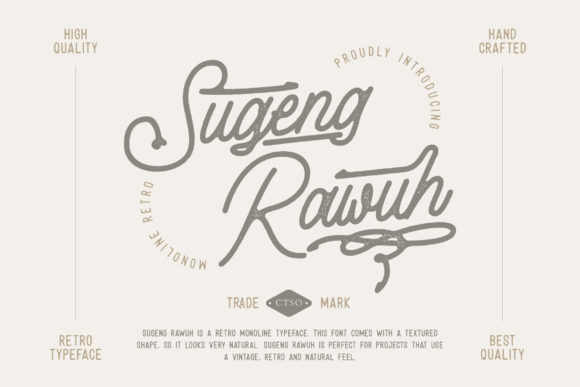
Unleash the Allure of Sugeng Rawuh: A Vintage Script Font That Captivates
In a world saturated with digital monotony, authenticity and charm are rare gems. Enter Sugeng Rawuh, a vintage-inspired script font that breathes new life into your creative endeavors. This masterfully crafted font family exudes sophistication, elegance, and a timeless allure that will leave a lasting impression on your audience.
Step into the Enchanted Realm of Sugeng Rawuh
Sugeng Rawuh is not just a font; it's an artistic journey that transports you to a bygone era of elegance and grace. Its meticulously designed characters, reminiscent of classic hand-lettering, evoke a sense of nostalgia and romance. Each letterform is a work of art, carefully balanced and adorned with intricate details that add depth and dimension to your designs.
Tailored for Digital Grandeur
In the realm of digital artistry, Sugeng Rawuh shines as a beacon of versatility. Its carefully crafted alternates and ligatures seamlessly blend together, creating a harmonious flow that enhances the visual appeal of your projects. Whether you're designing logos, crafting invitations, creating social media graphics, or bringing your website to life, Sugeng Rawuh effortlessly elevates your creations, adding a touch of timeless charm to every pixel.
Unlock the Endless Creative Possibilities
With Sugeng Rawuh at your fingertips, the creative possibilities are limitless. This versatile font family lends itself effortlessly to a wide range of projects, from elegant wedding invitations to captivating social media posts, from eye-catching branding materials to stunning website designs. Its vintage charm adds a touch of sophistication to any project, while its contemporary appeal ensures that your creations remain relevant and captivating in the digital age.
Unleash Your Inner Artist
Sugeng Rawuh is more than just a font; it's an invitation to unleash your inner artist. Its meticulously crafted characters and harmonious flow provide the perfect canvas for your creativity to flourish. Whether you're a seasoned designer or just starting your creative journey, Sugeng Rawuh will inspire you to create designs that captivate and enchant your audience.